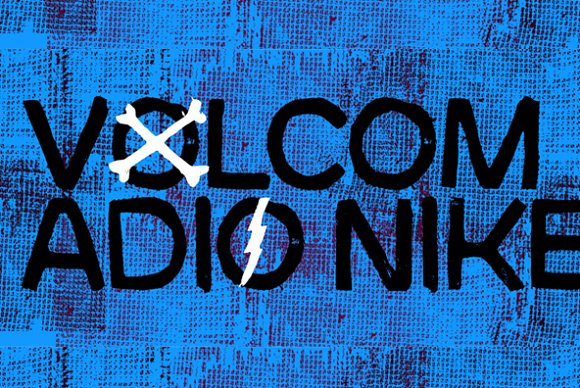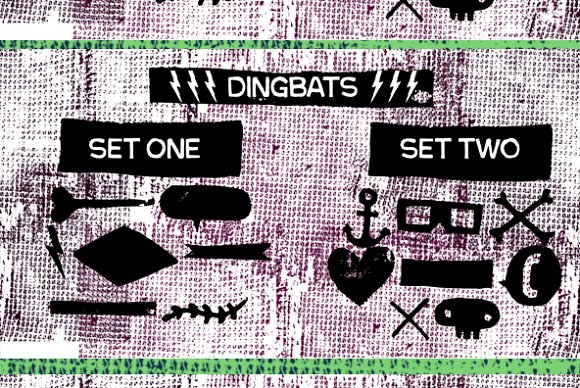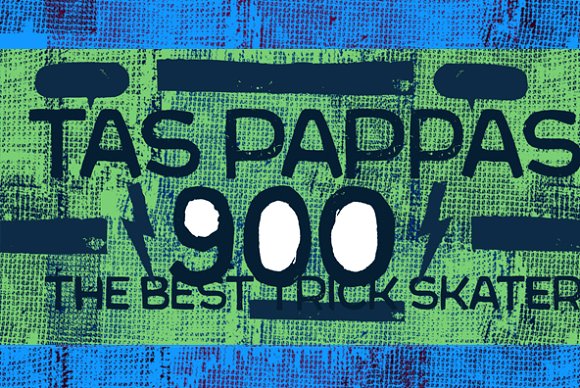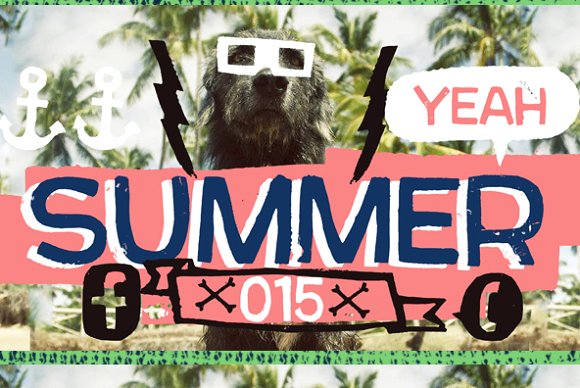
Australia Skate Font: Unleashing the Fury of the Streets
Have you ever felt like you’re bursting with energy, like the world needs to hear your message? That’s exactly how Rodrigo Araya Salas felt when he created the Australia Skate Font. This bold, rough typeface was born out of a desire to express the raw power and intensity of the skate culture.
Australia Skate Font is more than just a font – it’s a statement. It’s a call to action, a warning sign that something big is about to happen. With its distressed, gritty texture, it’s the perfect fit for designers who want to add a touch of rebellion to their projects. Whether you’re working on a skateboarding magazine, a punk rock band’s album cover, or a bold street art campaign, Australia Skate Font is the perfect tool to unleash your creativity.
Australia Skate Font Key Features
- Font Style: A modern, bold, and edgy sans-serif font designed specifically for the skateboarding community.
- Character Count: The font family includes over 100 unique characters, including letters, numbers, and punctuation marks.
- Size and Resolution: Designed to be highly legible at various sizes, with optimal results at 12-48 points and resolutions up to 300 DPI.
- Unique Characteristics: Distinctive letterforms, bold lines, and a rugged aesthetic that embodies the spirit of skateboarding culture.
Australia Skate Font Review
I recently had the chance to work with the Australia Skate Font, and I must say it’s been a mixed bag for me. Here’s my honest take:
- Fun, energetic vibe: The font screams skate culture, and I appreciate the nod to the Australian roots.
- High-quality glyphs: The characters are well-designed and clear, making it perfect for use in titles and headings.
- Excellent legibility: The font is easy to read, even at smaller sizes, which is a must for any font.
- Character set limitations: The font doesn’t have a full set of characters, which can make it difficult to use in certain situations.
- Lack of consistency: The font’s design is a bit inconsistent in some areas, which can be jarring to the eye.
Overall, I think the Australia Skate Font has some great qualities, but it falls short in a few areas. If you’re looking for a fun, energetic font for a skate-inspired project, this might be a good choice. However, if you need a font with a full character set or more consistency in its design, you might want to look elsewhere.
The Australia Skate Font is ideal for creating bold and eye-catching text for skateboarding-related projects. Some common use cases include:
- Skateboarding logos and branding
- Skateboarding event posters and flyers
- Skateboarding-themed merchandise and apparel